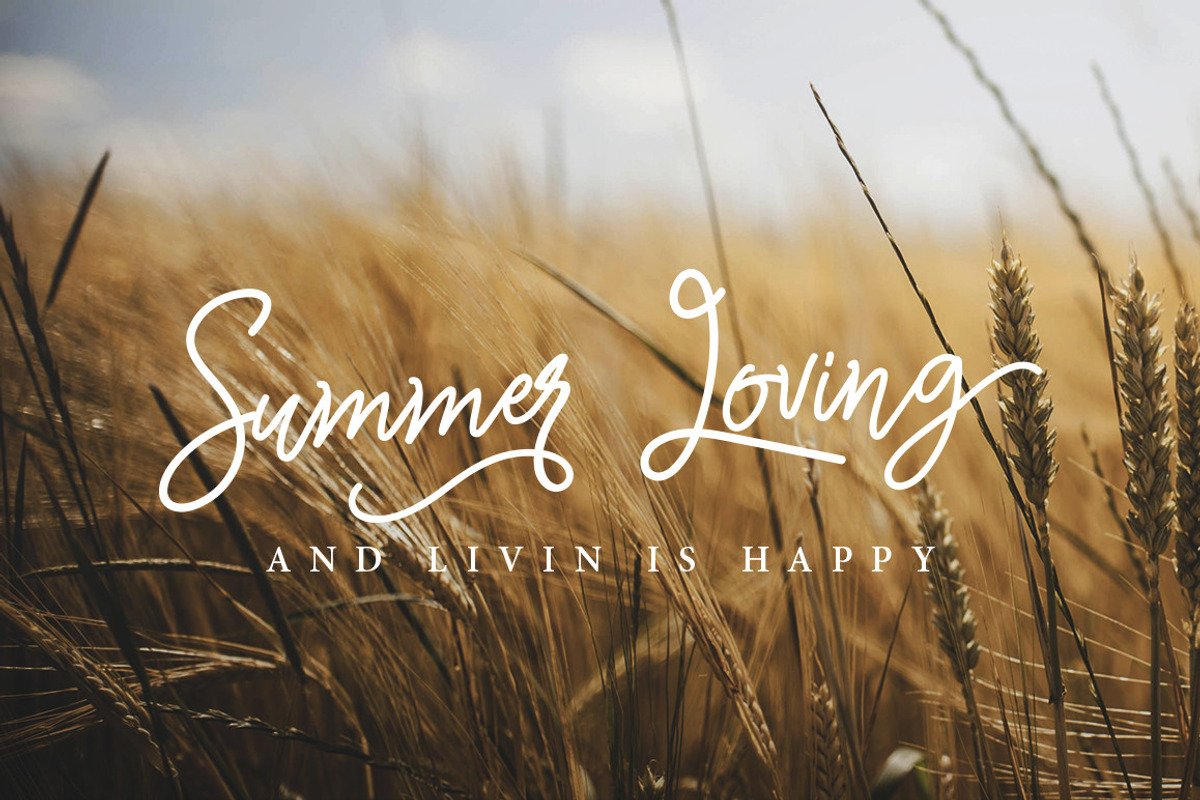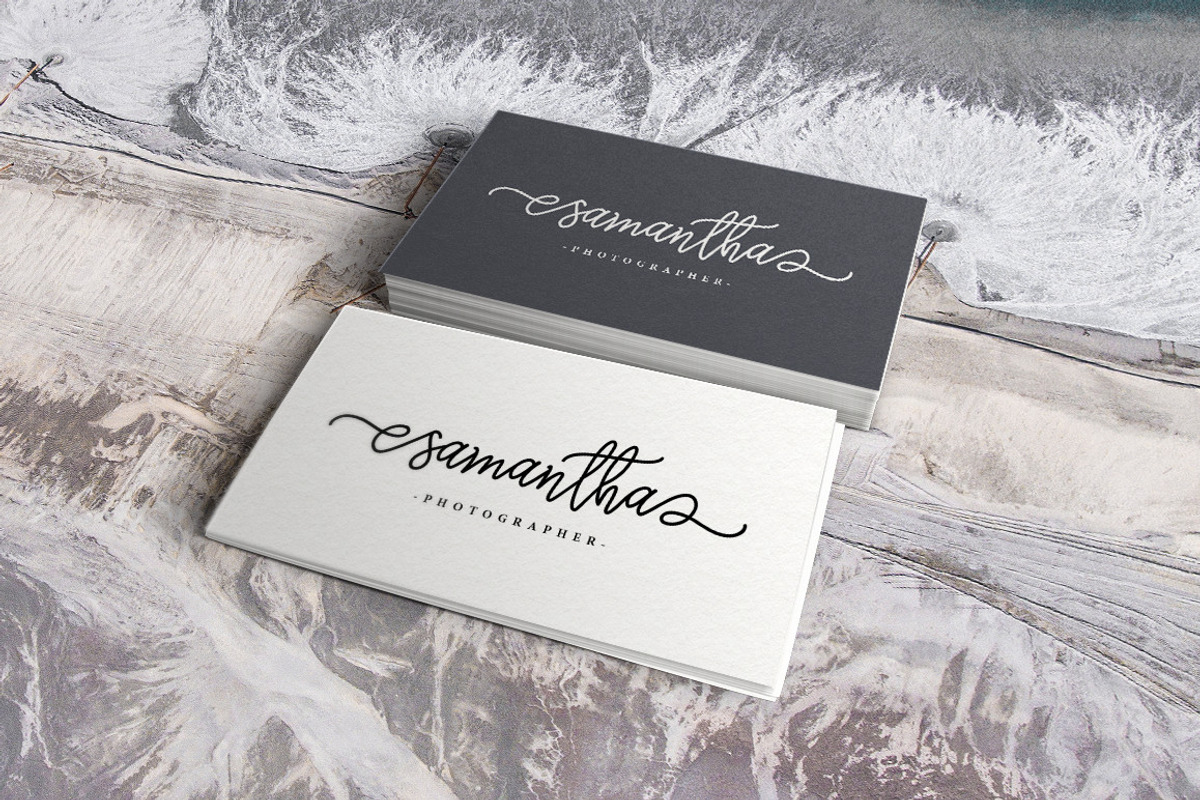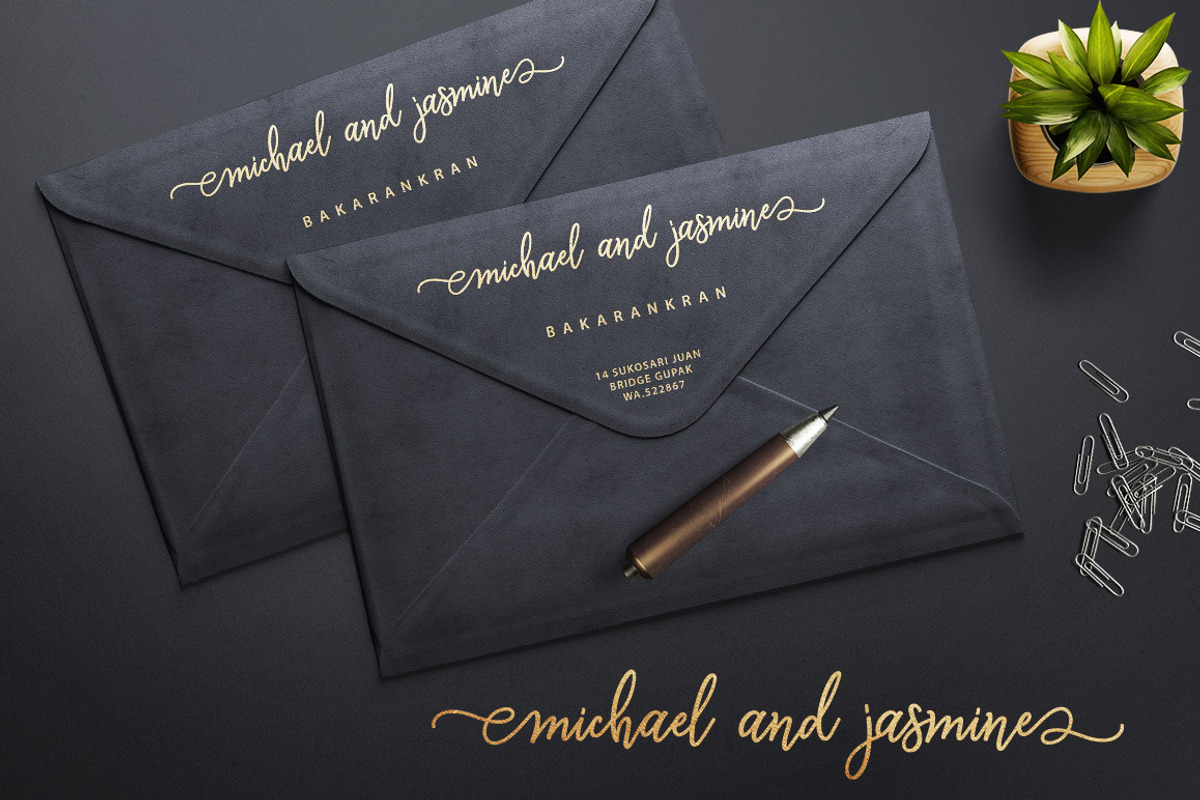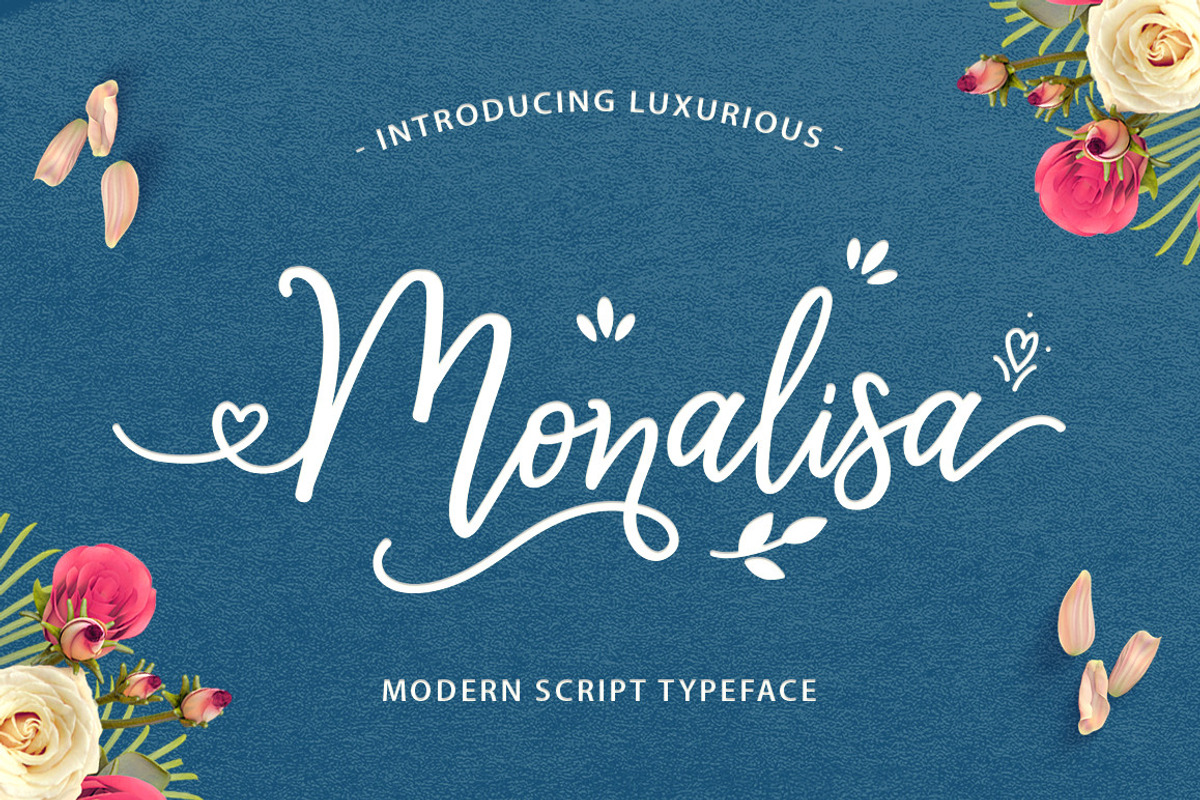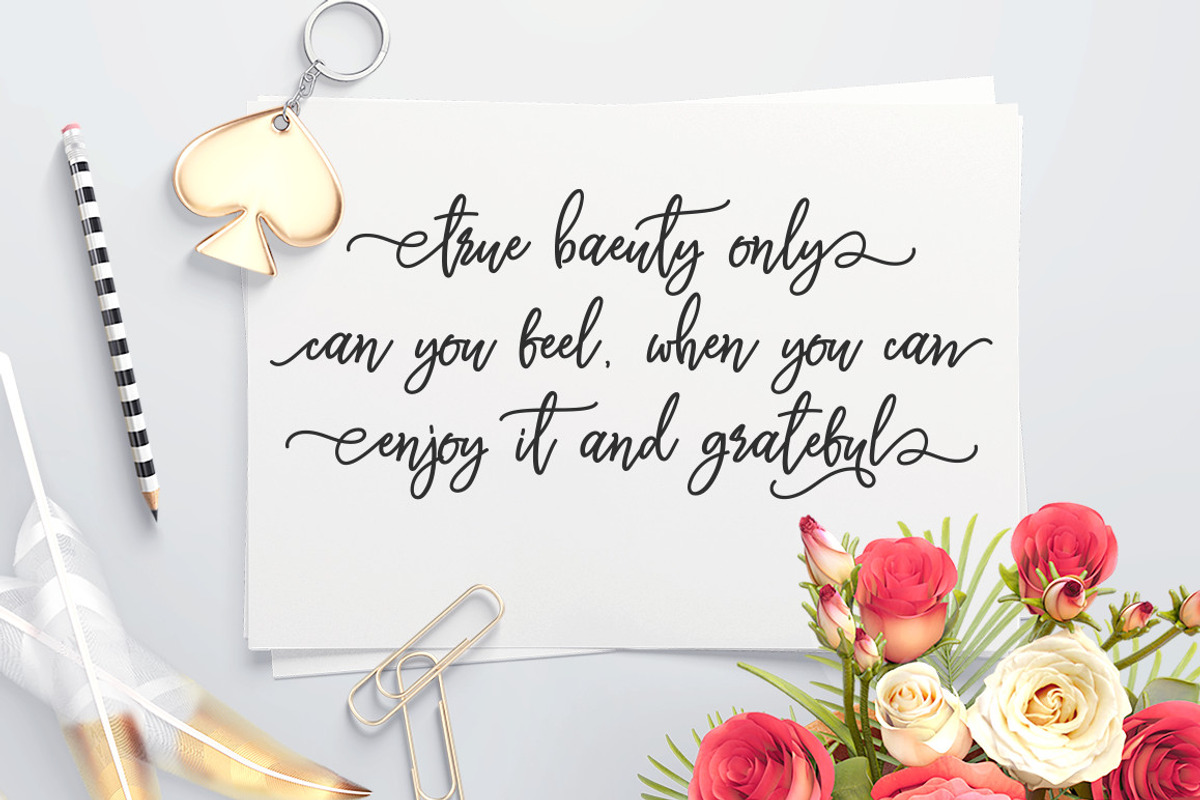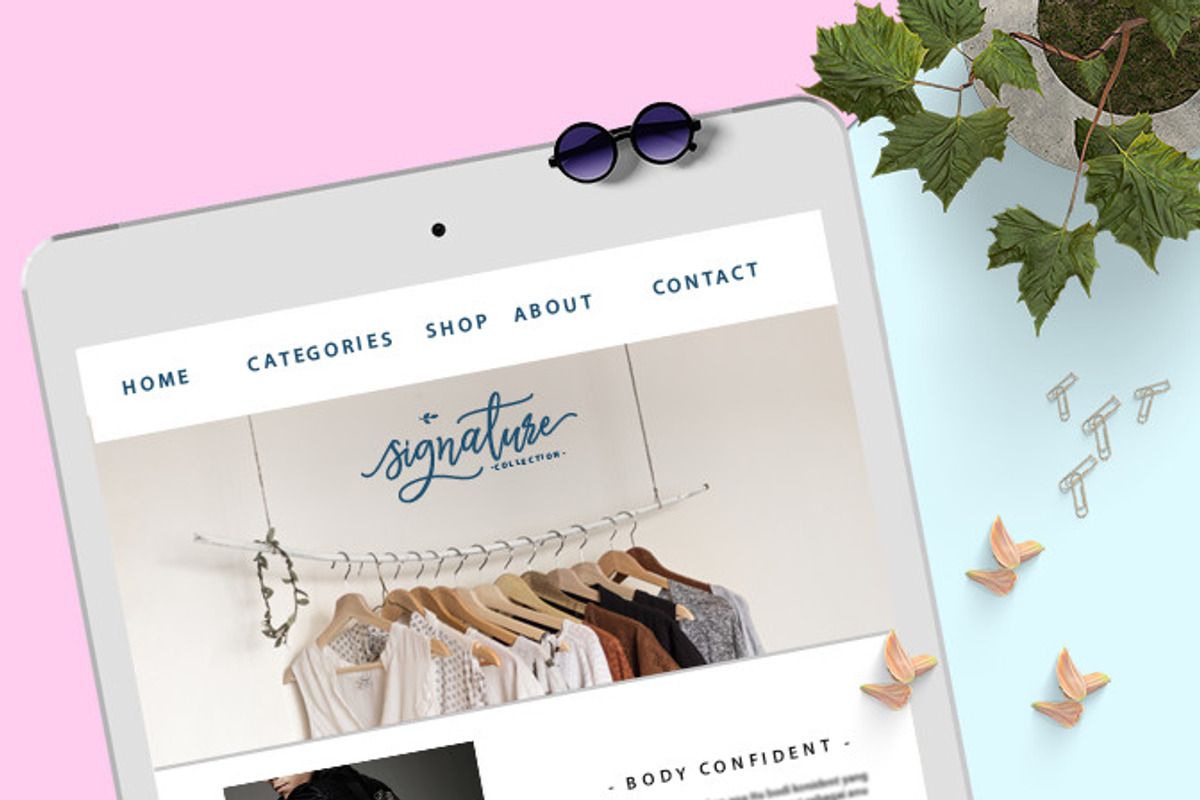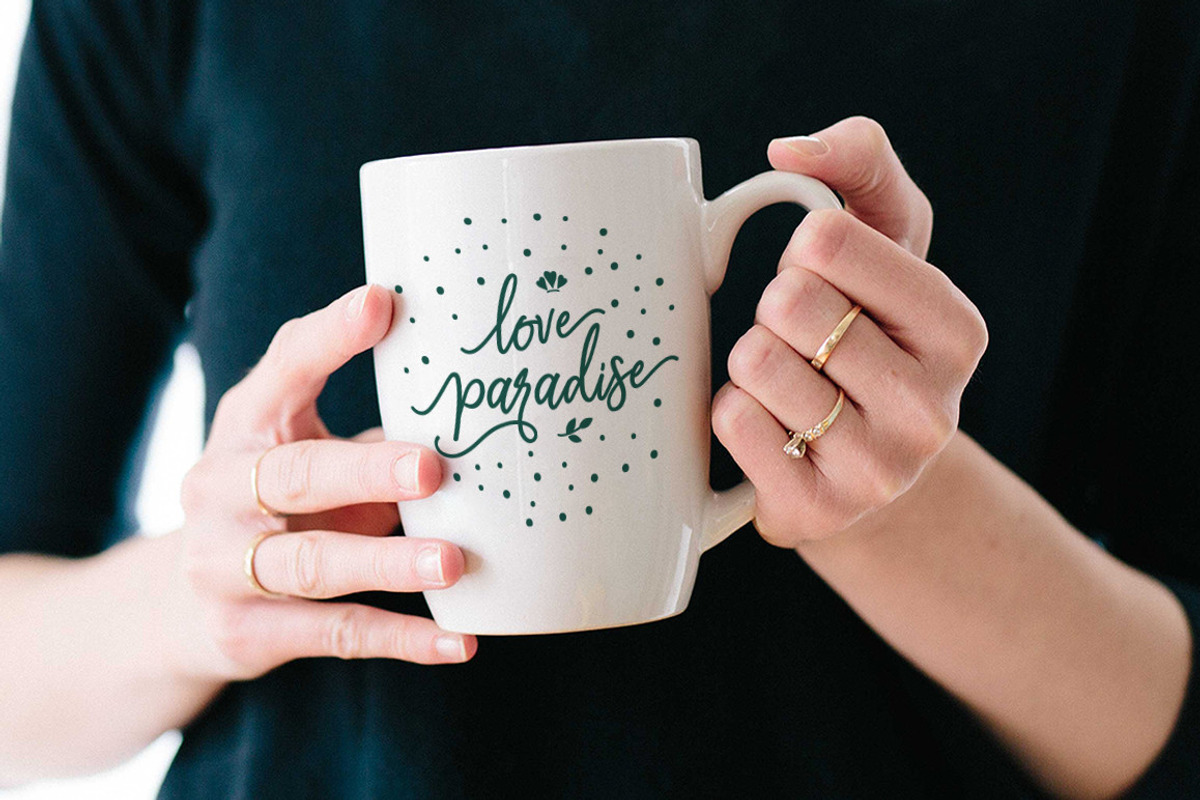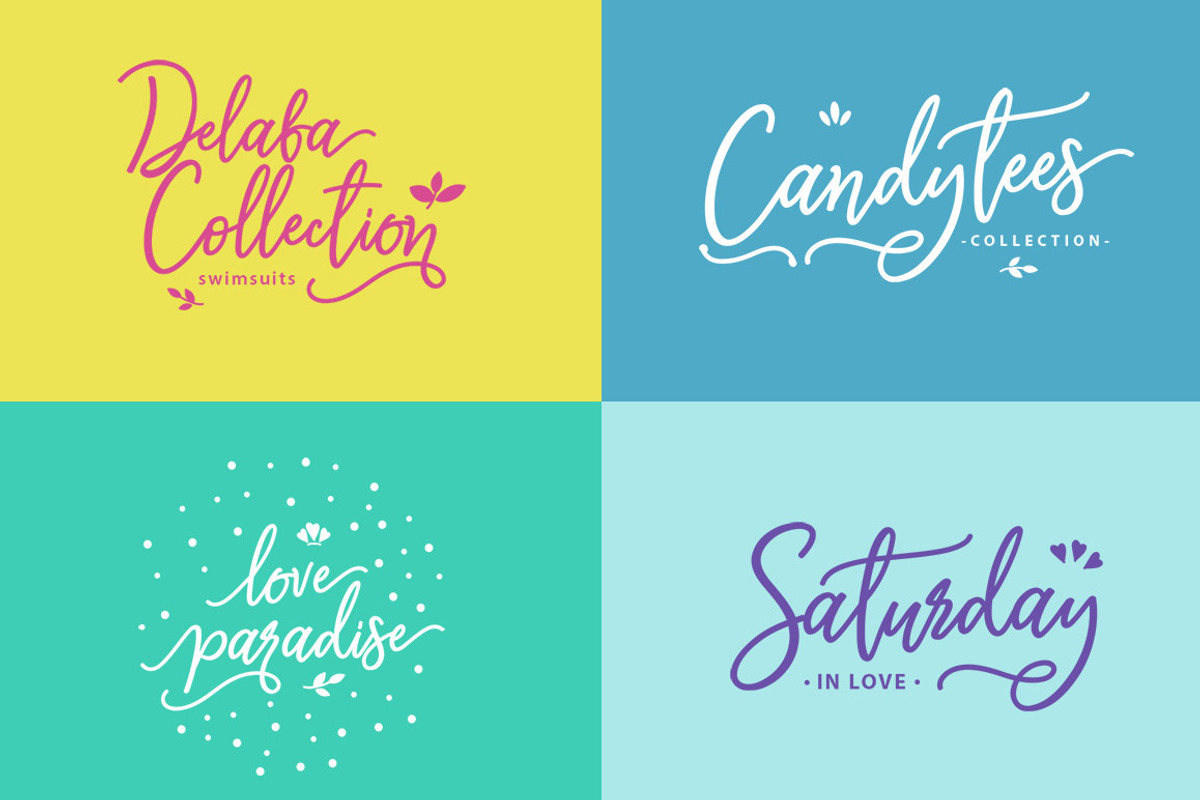
Monalisa Luxurious Font
Monalisa Luxurious Font by sizimon is a font selected for branding, posters, packaging, typography.
- It contains a full set of lower & uppercase letters, a large range of punctuation, numerals, and multilingual support.
- Monalisa comes as a Monoline font, and also come with 413 Glyph and 37 Swash Characters.
Why Monalisa Luxurious Font is worth a look
Monalisa Luxurious Font by sizimon fits naturally into Branding, posters, packaging, typography.